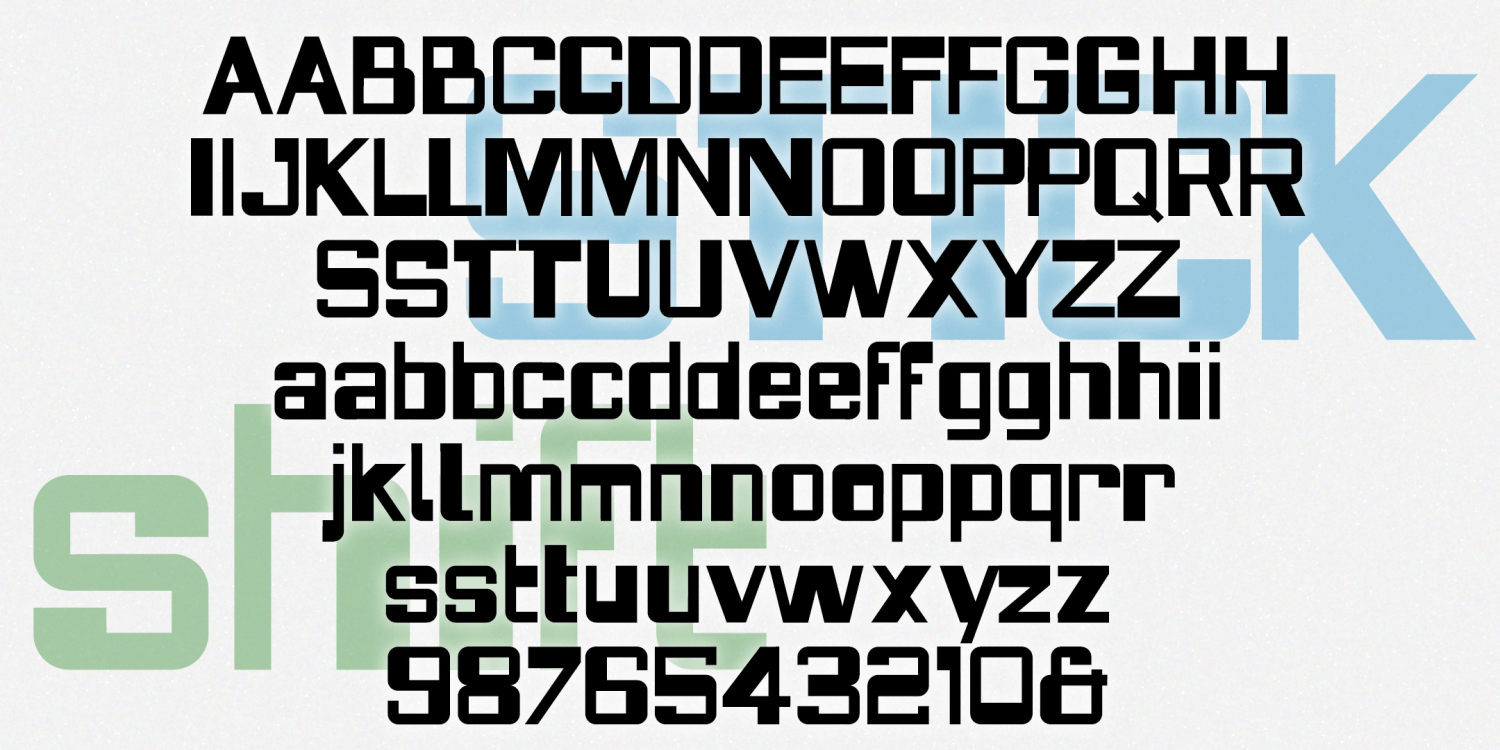
Stickshift
STICKSHIFT is a playful but unsettling sanserif. Apparently square and controlled, STICKSHIFT switches from thick to thin in unexpected ways. Combines aspects of folk-inspired lettering like BENSFOLK with a punch-card design. Lots of alternate characters and discretionary ligatures to keep the shift quality going. Inspired by the logo of the 1967 film "In the Heat of the Night."
Stickshift Regular by Harold's Fonts